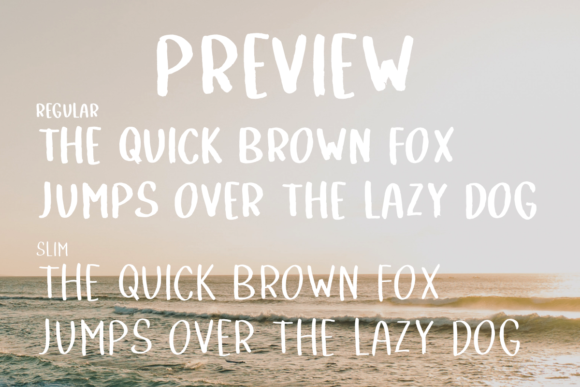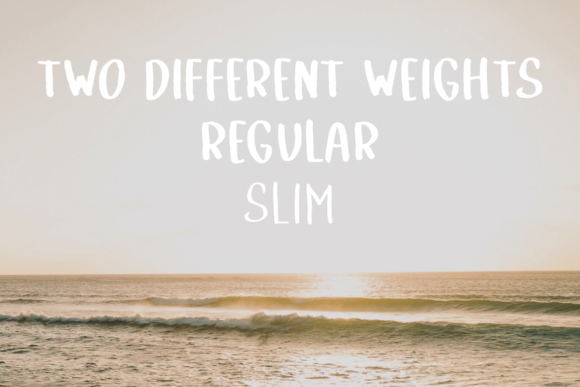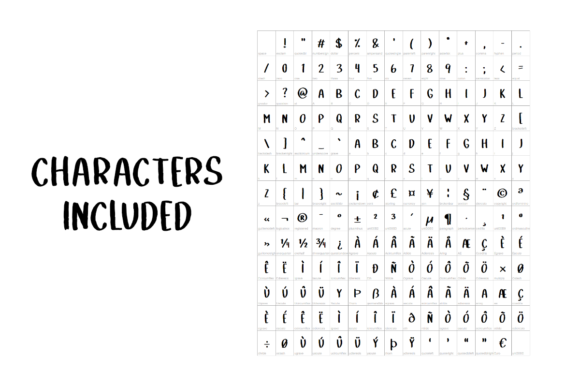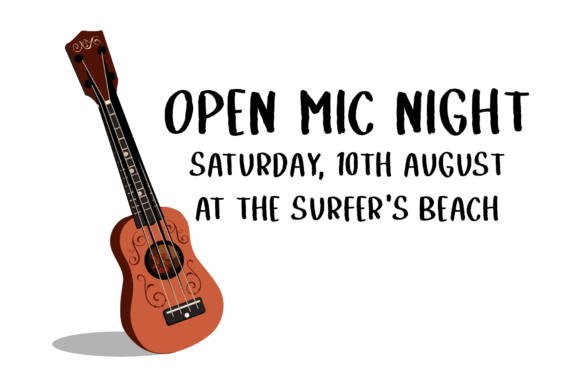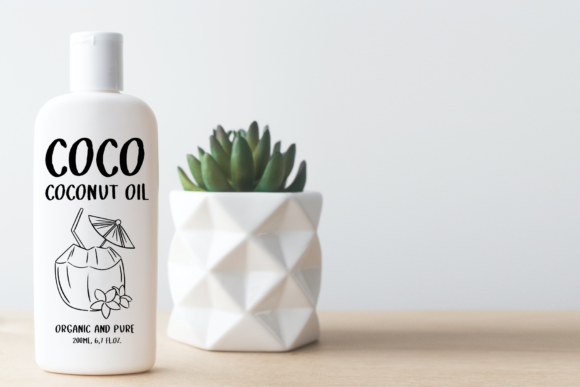
Coconut Tree Font
About Coconut Tree Font
Coconut Tree is a cute, informal and paint brushed handwritten font. Its natural and unique style makes it incredibly fitting to a large pool of designs. The only limit is your imagination!